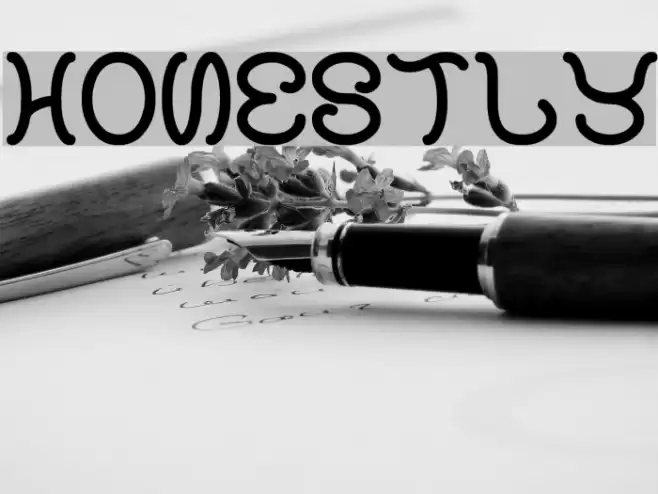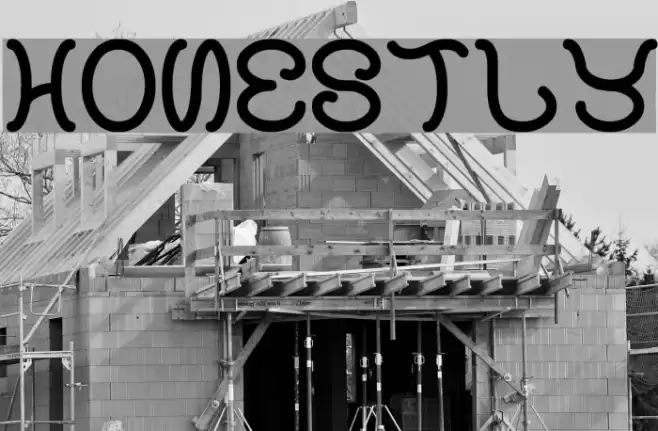
honestly Font
honestly Description
This font features a playful and whimsical design with rounded, flowing strokes that give it a unique and artistic appearance. The characters are bold and have a consistent thickness throughout, creating a sense of uniformity. The rounded edges and smooth curves contribute to its friendly and approachable look. The font maintains a consistent height and width across all characters, ensuring readability while adding a touch of creativity. Its distinctive style makes it suitable for projects that require a fun and engaging visual element.
A playful, bold font with rounded, flowing strokes and a whimsical design from Uncategorized fonts.
- Overall Style: Playful